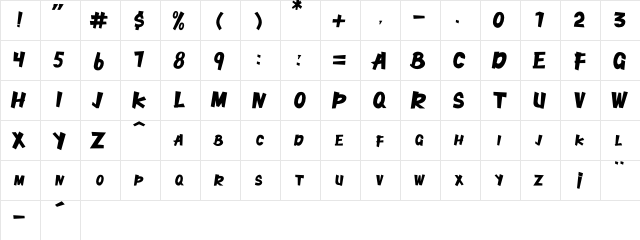
Chicken Dinner Demo Regular
Design Context for Chicken Dinner Demo Typeface
Chicken Dinner Demo is a composed and adaptable typeface that performs quietly and consistently across a wide range of design contexts.
Pro Tip: Pair Chicken Dinner Demo with a font of contrasting weight or personality to build a more expressive typographic hierarchy.